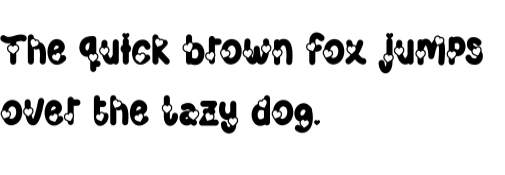
Love Paradise Font: The Cute and Romantic Display Font for Your Creative Projects
Are you looking for a font that can add a touch of romance and cuteness to your creative projects? Look no further than Love Paradise Font. This beautiful display font is perfect for a variety of applications, from letters and greeting cards to children’s games and more. In this article, we’ll take a closer look at Love Paradise Font and explore its features, benefits, and uses.
What is Love Paradise Font?
Love Paradise Font is a cute and romantic display font designed to add a touch of whimsy and charm to your creative projects. Its unique and playful design makes it perfect for a variety of applications, from personal letters and greeting cards to children’s games and educational materials.
Features of Love Paradise Font
Love Paradise Font has several features that make it an ideal choice for your creative projects. Some of its key features include:
- Cute and Romantic Design: Love Paradise Font has a unique and playful design that is both cute and romantic. Its charming and whimsical style is perfect for adding a touch of personality to your creative projects.
- Display Font: Love Paradise Font is a display font, which means it is designed to be used at larger sizes, making it perfect for headings, titles, and other display purposes.
- Easy to Read: Despite its playful design, Love Paradise Font is easy to read, making it perfect for use in a variety of applications, from letters and greeting cards to children’s games and educational materials.
Benefits of Using Love Paradise Font
There are several benefits to using Love Paradise Font in your creative projects. Some of the key benefits include:
- Adds a Touch of Romance and Cuteness: Love Paradise Font adds a touch of romance and cuteness to your creative projects, making it perfect for applications where you want to convey a sense of whimsy and charm.
- Perfect for a Variety of Applications: Love Paradise Font is versatile and can be used in a variety of applications, from personal letters and greeting cards to children’s games and educational materials.
- Easily Customizable: Love Paradise Font is easily customizable, allowing you to adjust its size, color, and style to fit your creative project.
Uses of Love Paradise Font
Love Paradise Font is a versatile font that can be used in a variety of applications. Some of the most popular uses of Love Paradise Font include:
- Personal Letters and Greeting Cards: Love Paradise Font is perfect for adding a touch of romance and whimsy to personal letters and greeting cards.
- Children’s Games and Educational Materials: Love Paradise Font is a great choice for children’s games and educational materials, where its playful design can help to engage and entertain young learners.
- Social Media Graphics and Posts: Love Paradise Font can also be used to create social media graphics and posts that are sure to grab attention and convey a sense of personality.
Tips and Tricks for Using Love Paradise Font
Here are some tips and tricks for using Love Paradise Font:
- Use it Sparingly: Love Paradise Font is a display font, so it’s best to use it sparingly to add emphasis and personality to your creative project.
- Pair it with Other Fonts: Love Paradise Font can be paired with other fonts to create a unique and visually appealing design.
- Experiment with Colors: Love Paradise Font looks great in a variety of colors, so don’t be afraid to experiment and find the perfect color for your creative project.
Love Paradise Font is a cute and romantic display font that is perfect for adding a touch of whimsy and charm to your creative projects. Its unique and playful design makes it perfect for a variety of applications, from personal letters and greeting cards to children’s games and educational materials. With its ease of use and customization options, Love Paradise Font is a great choice for anyone looking to add a touch of personality to their creative projects.